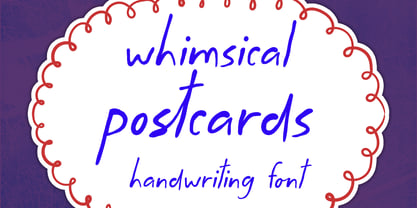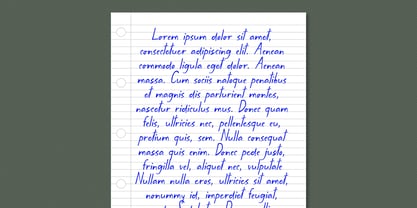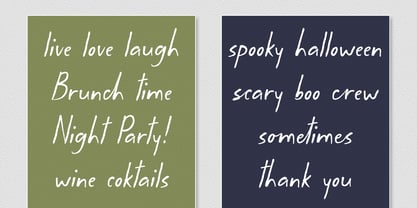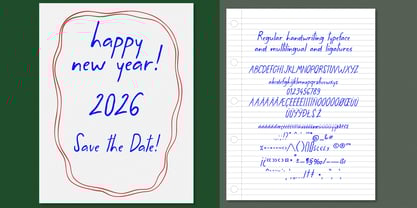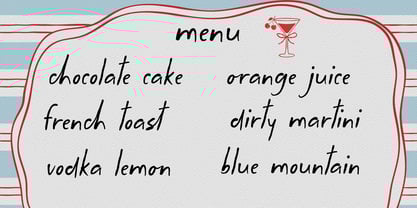
Whimsical Postcards
by Tanon Design
The Whimsical Postcards Font Family was designed by Tanonnat Kaeoket and published by Tanon Design. Whimsical Postcards contains 1 styles.
Whimsical Postcards handwriting font is a fun and festive display font. It will look fantastic on all your designs including t-shirt designs, mug designs, digital designs, crafts, cards, and any projects! With modern and whimsical handwriting feeling font design. Perfectly suited for any designs, this font adds a playful vibes to your posters, invitations, party flyers, signs, social media graphics, and more.
Designers: Tanonnat Kaeoket
Publisher: Tanon Design
Foundry: Tanon Design
Design Owner: Tanon Design